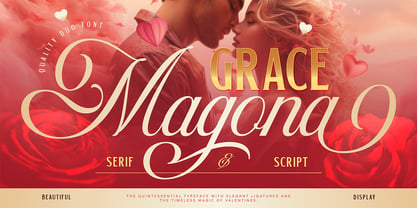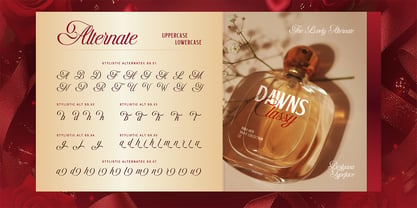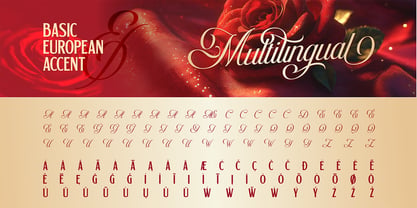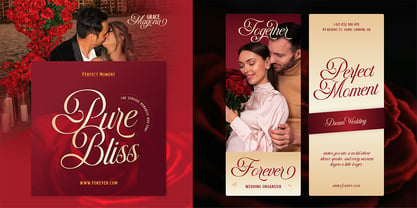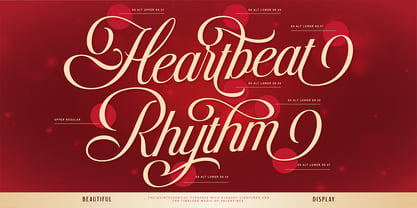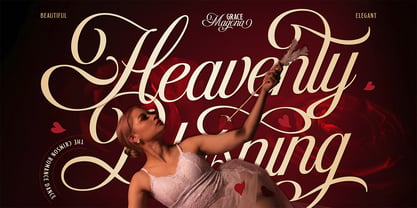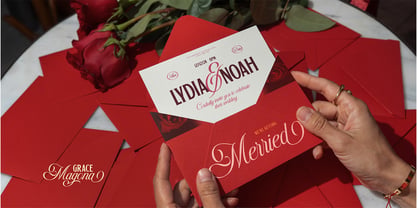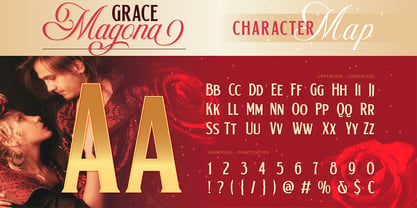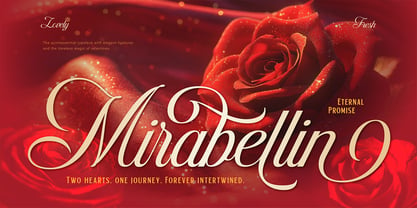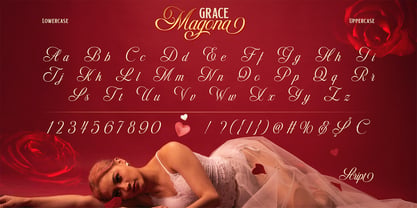
Grace Magona
The Grace Magona Font Family was designed by Eric Kurniawan and published by Burntilldead. Grace Magona contains 2 styles and family package options. More about this family
Grace Magona is a romantic duo font that blends sensual curves with elegant sophistication. Featuring a bold, luxurious serif paired with a soft, seductive script, this typeface brings a warm, intimate energy to every design. The serif style delivers confidence and classic charm, while the script flows with silky strokes and passionate movement—creating the perfect harmony for love-themed visuals, beauty branding, wedding designs, perfume packaging, and editorial layouts. Let your words feel tender, alluring, and beautifully timeless with Grace Magona—a duo font designed to elevate romance in the most elegant way. Features: A - Z set (Uppercase & Lowercase), Number, Alternate, Punctuation, Multilingual